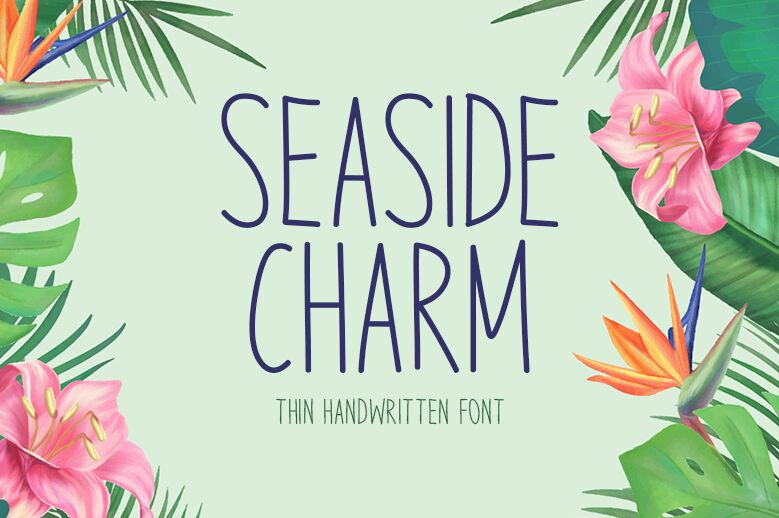
Seaside Charm font, crafted by Md Shohail Bhuian of Seemly Fonts, embodies a handwritten aesthetic with a light and airy touch. Its condensed form exudes a sleek sophistication that captures the essence of modern minimalism. The flowing design adds an organic elegance, making it ideal for projects seeking a personal yet polished touch.
Perfect for branding, invitations, and social media graphics, Seaside Charm stands out in its versatility and style. Designers can easily download this free font to add an authentic flair to both professional and creative endeavors.